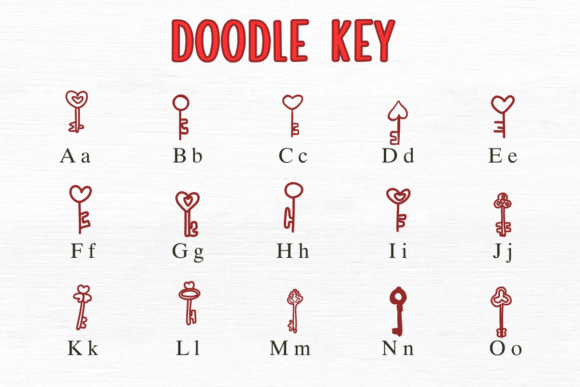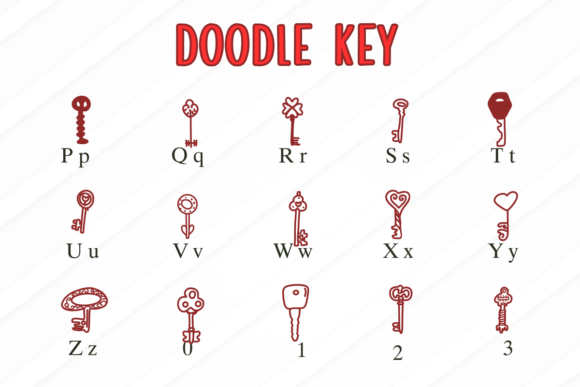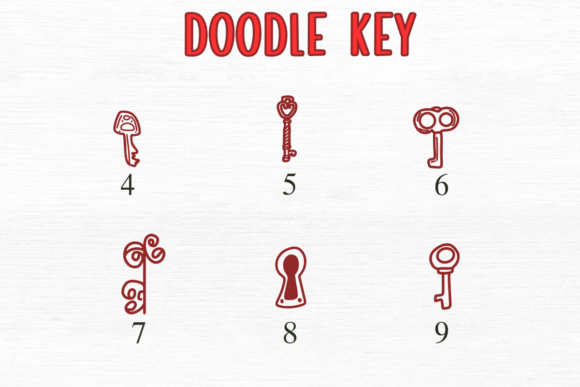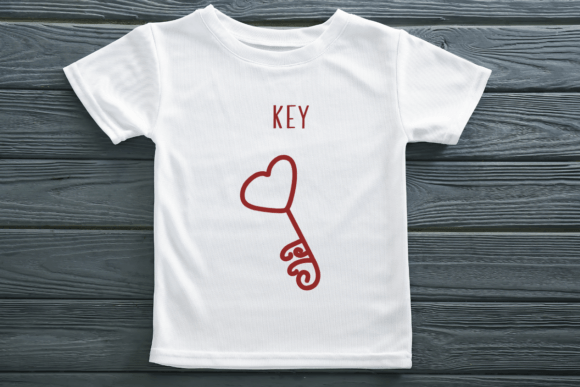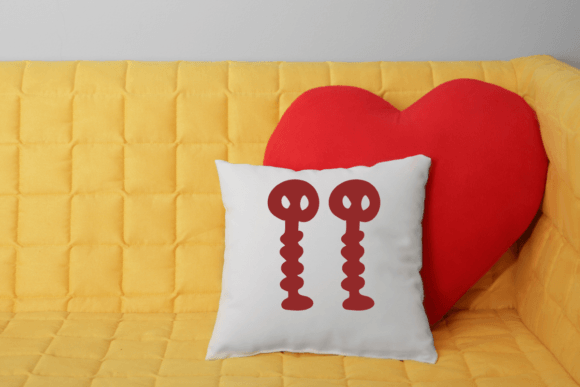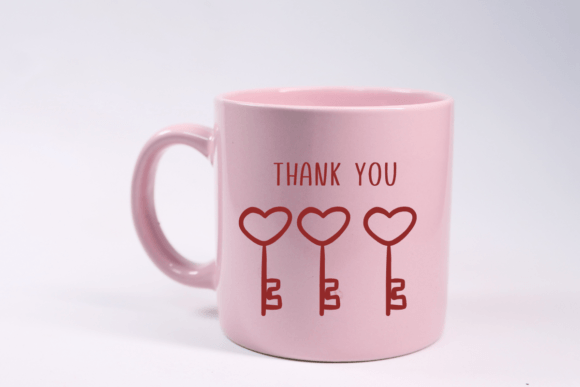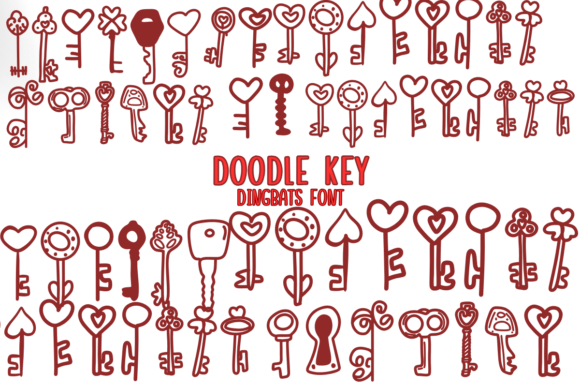
Doodle Key Font: Unlock Your Creativity with Whimsical Key Shapes
Are you looking for a font that adds a touch of playfulness to your designs? Look no further than the Doodle Key Font! This fun dingbats font features an assortment of various key shapes that are sure to unlock your creativity and bring a unique flair to your projects.
What is Doodle Key Font?
Doodle Key Font is a dingbats font that consists of different key shapes, each one carefully crafted to add a whimsical touch to your designs. The font is perfect for designers, crafters, and anyone looking to add a bit of personality to their work. Whether you’re designing invitations, posters, or any other type of project, Doodle Key Font is sure to make it stand out.
Features of Doodle Key Font
So, what makes Doodle Key Font so special? Here are just a few of its key features:
- Variety of Key Shapes: The font features a wide range of key shapes, from simple and classic to more intricate and decorative.
- Playful and Whimsical: The keys are designed to be playful and whimsical, adding a touch of fun to any project.
- Scalable: The font is scalable, allowing you to use it for a wide range of projects, from small icons to large posters.
Uses for Doodle Key Font
So, what can you use Doodle Key Font for? The possibilities are endless! Here are a few ideas to get you started:
- Invitations: Add a touch of whimsy to your invitations with Doodle Key Font. Perfect for birthday parties, graduations, and other celebrations.
- Posters: Create eye-catching posters with Doodle Key Font. Great for advertising, promoting events, or simply adding a bit of personality to your walls.
- DIY Crafts: Use Doodle Key Font to add a personal touch to your DIY crafts, such as scrapbooking, card making, and other paper crafts.
- Digital Designs: Use Doodle Key Font in your digital designs, such as social media graphics, blog posts, and website headers.
- Experiment with Different Sizes: Try using the font in different sizes to add visual interest to your designs.
- Mix and Match Keys: Combine different key shapes to create a unique and playful look.
- Use with Other Fonts: Pair Doodle Key Font with other fonts to add contrast and interest to your designs.
Doodle Key Font is a fun and playful dingbats font that’s perfect for adding a touch of whimsy to your designs. With its variety of key shapes, ease of use, and scalability, it’s an ideal choice for designers, crafters, and anyone looking to add a bit of personality to their work. So why not give it a try and unlock your creativity today?